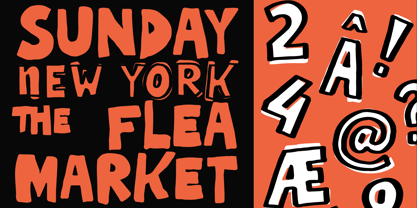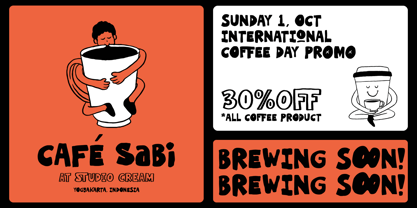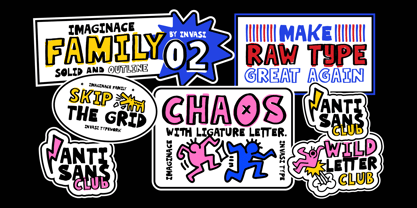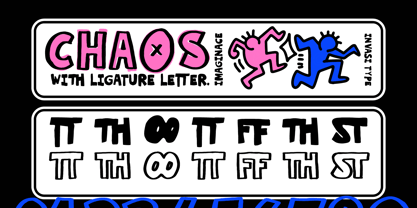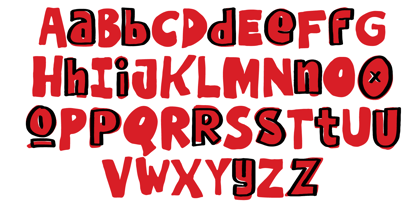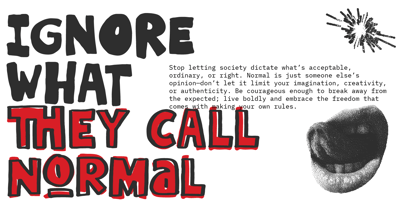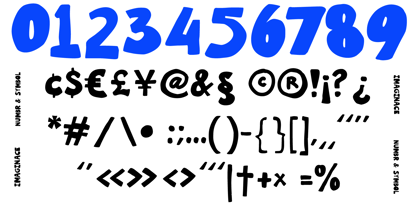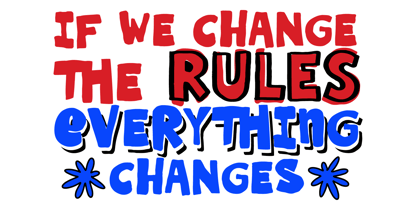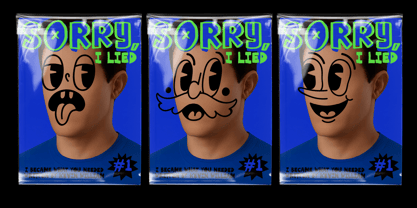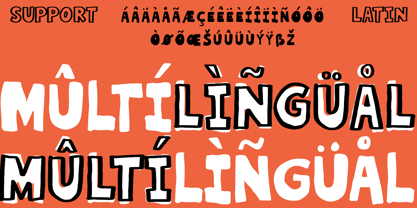
Imaginice
by Invasi Studio
The Imaginice Font Family was designed by Gha Arizal and published by Invasi Studio. Imaginice contains 2 styles and family package options. More about this family
Break the grid and embrace the chaos with Imaginice, a playful handwritten typeface that celebrates the imperfect. This font family features two distinct styles, Regular and Outline, intentionally mismatched to give you a bold, expressive look when paired together. Forget clean cuts and pixel-perfect precision; Imaginice is all about raw, hand-rawn spirit that still keeps its structure.
Whether you’re working on poster designs, youth branding, editorial titles, or street-style packaging, this font brings a spontaneous and quirky vibe to your layout. Built with a rebellious spirit, it comes packed with handmade irregular shapes, unique ligatures, and solid multilingual support — so your message stands out, loud and unapologetic.
Perfect for creatives who dare to skip the grid and make something wild.